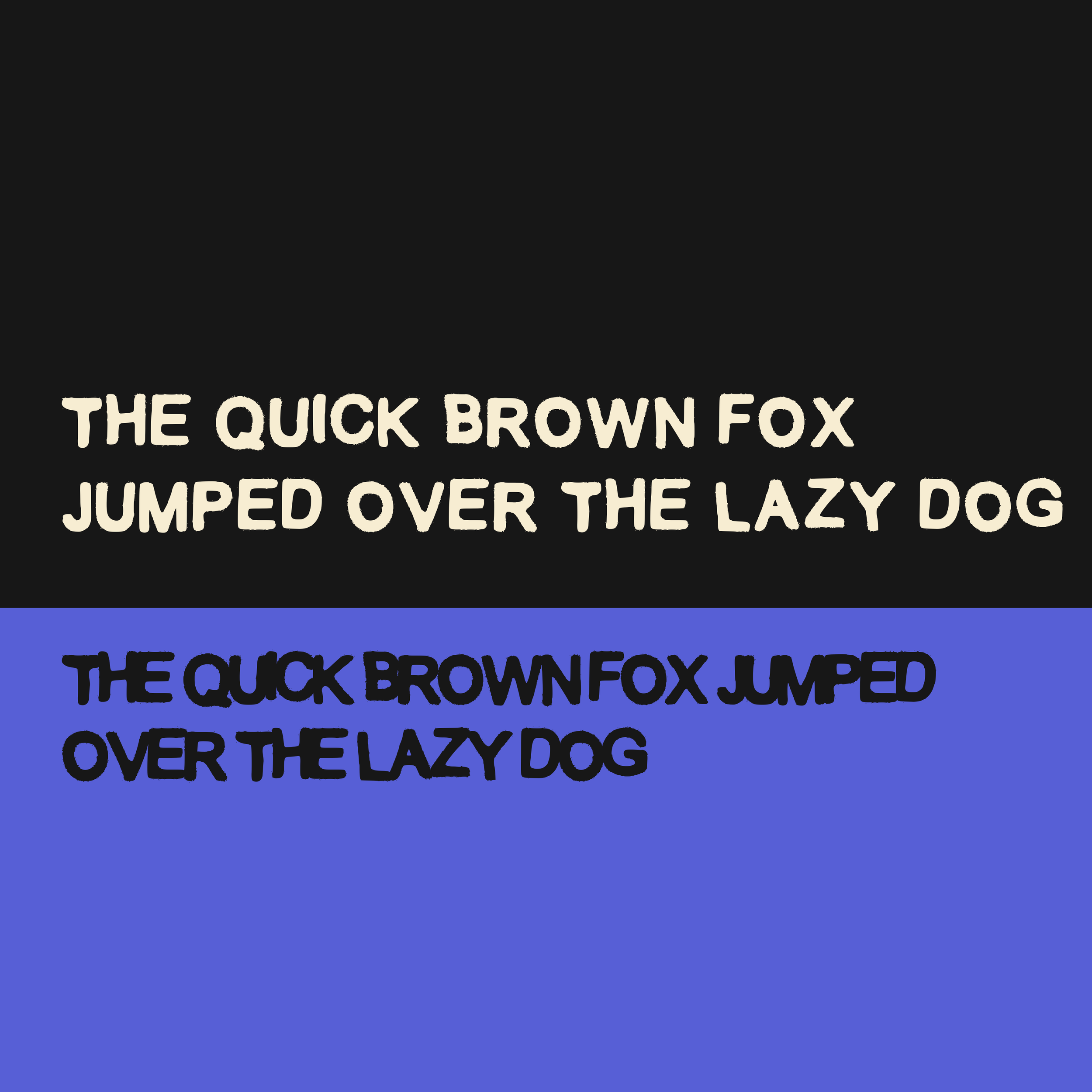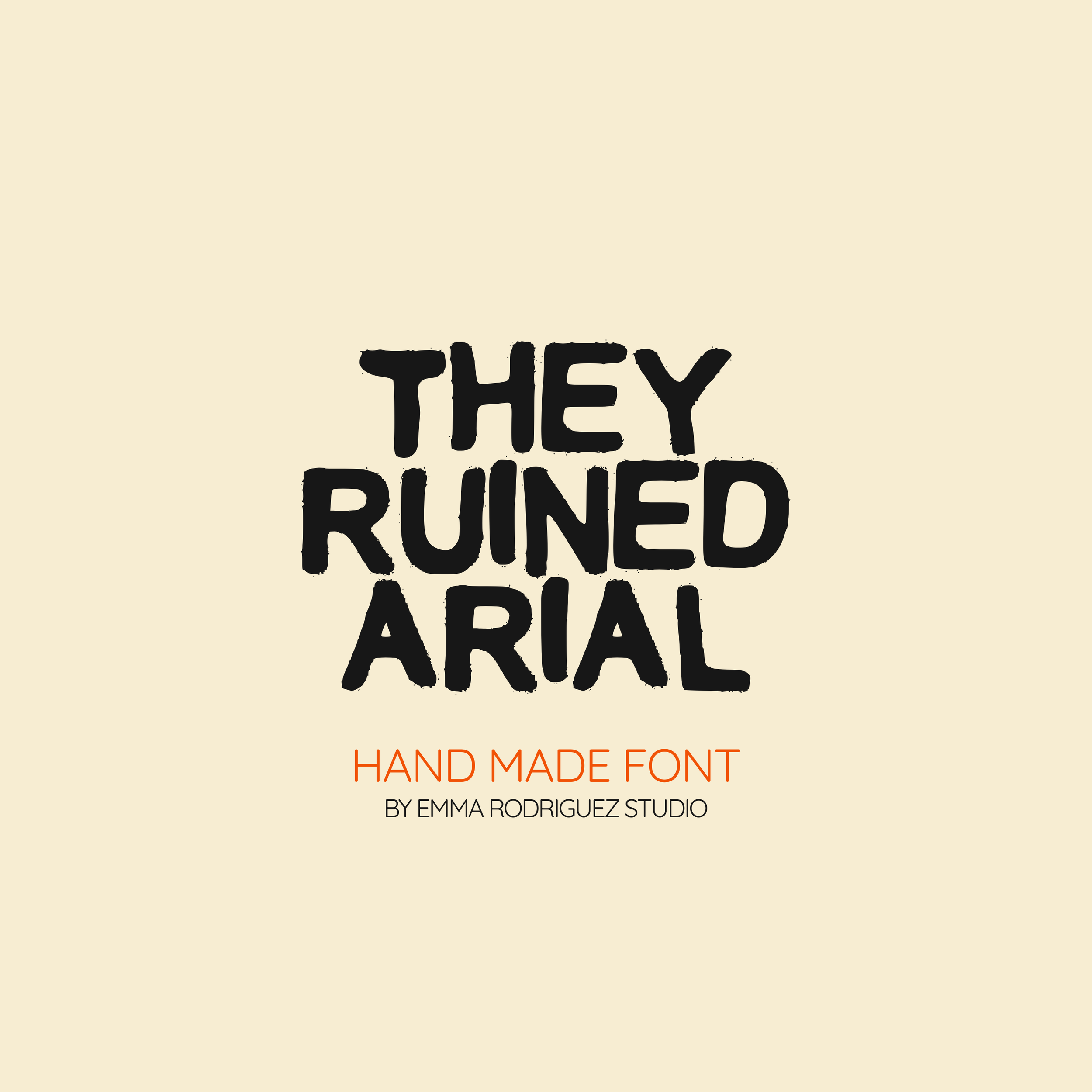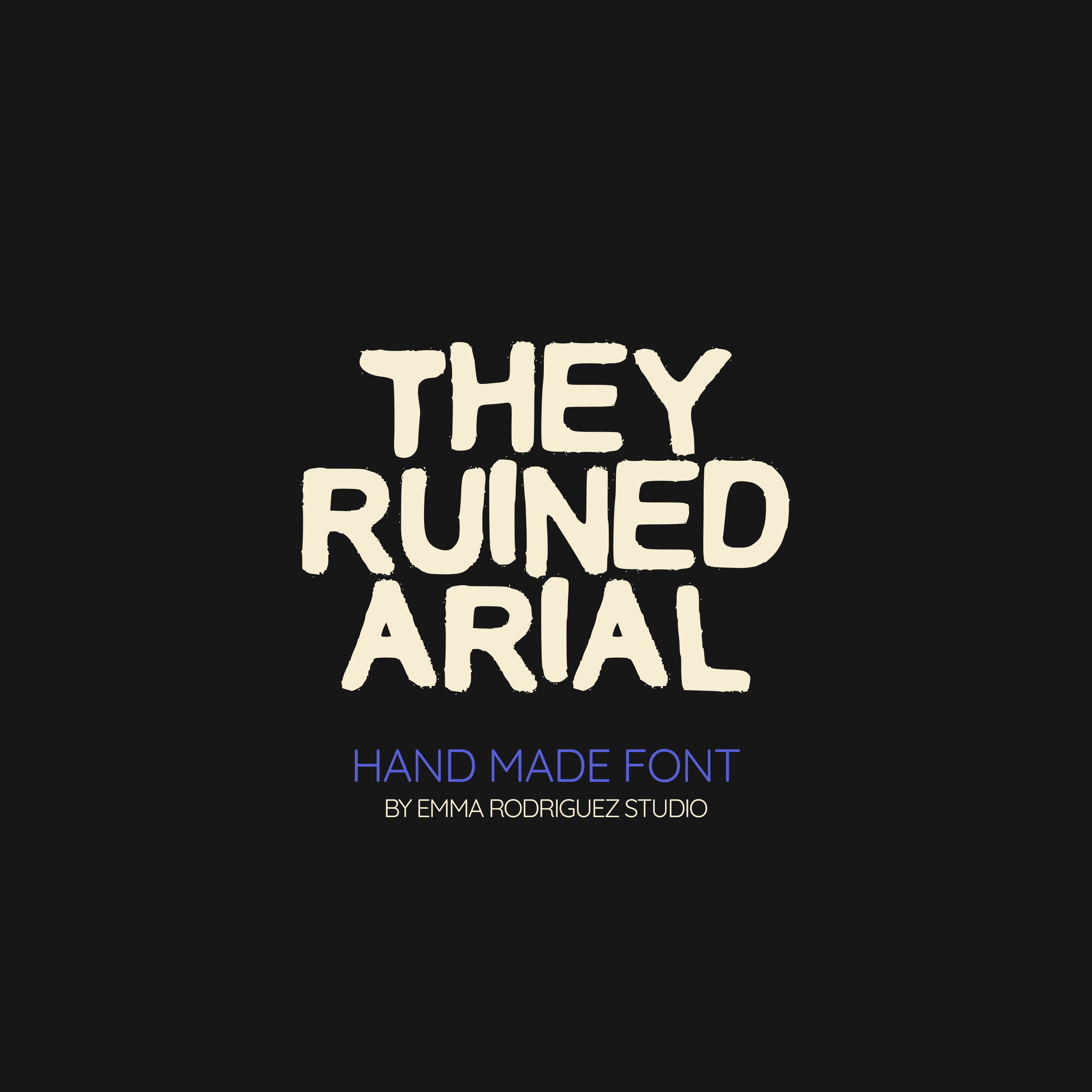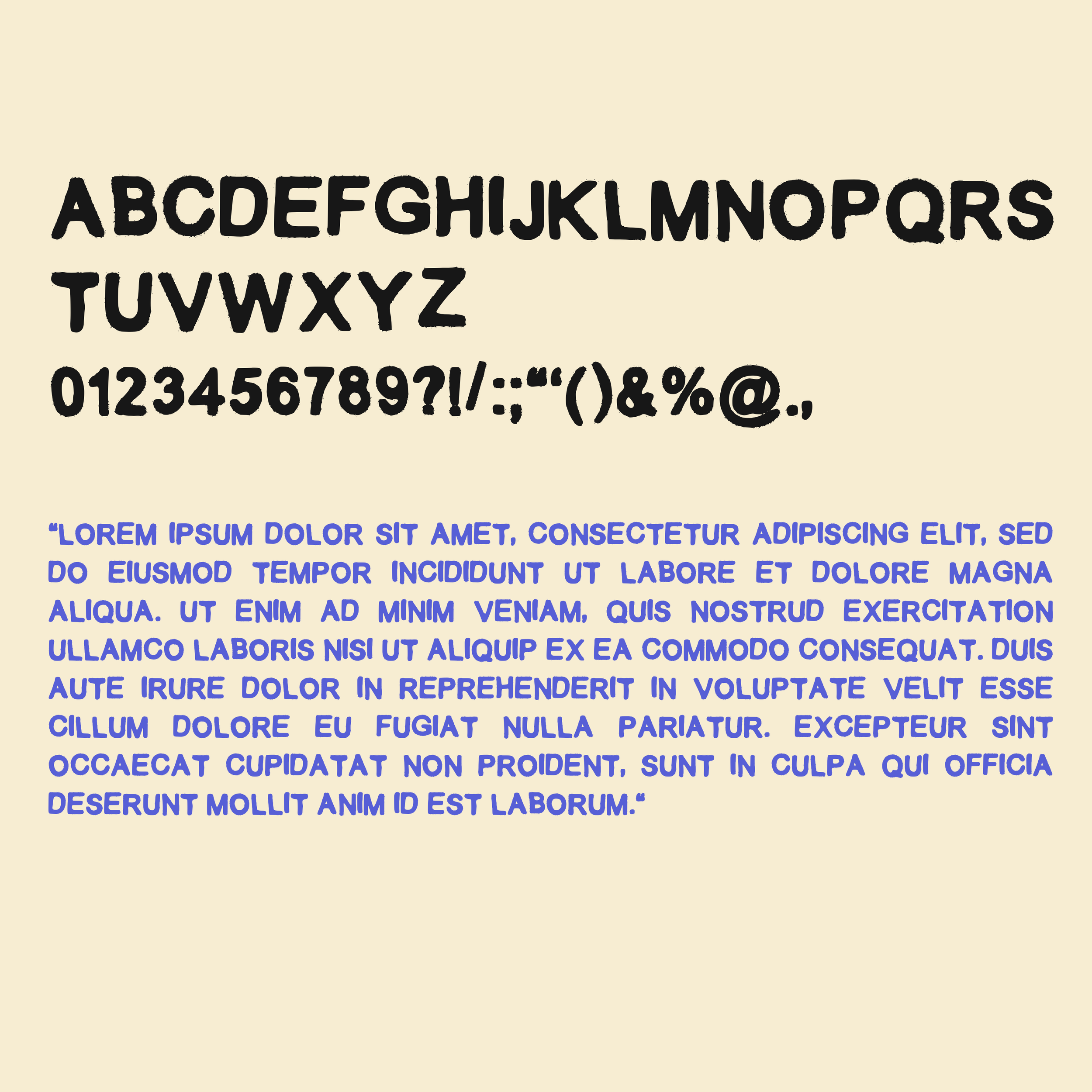
They Ruined Arial Font - San Serif Inky Stamp
Meet They Ruined Arial, a blotchy, inky stamp style twist on the world’s most painfully sensible font. It takes the clean, corporate structure of Arial and drags it through ink, pressure, and rough texture until it feels bold, gritty, and slightly unhinged.
Still recognisable. Still structured. Just ruined in the best possible way.
This all lowercase typeface keeps the familiar bones of Arial but adds heavy ink bleed, uneven stamp edges, and raw texture. It feels like something printed with too much pressure on cheap paper, scanned back in, and embraced for its flaws.
Perfect when you want something that feels strong but not sterile.
• All uppercase letters
• Numbers and basic punctuation
Use it for:
• Edgy branding
• Music artwork
• Bold posters
• Zines
• Statement quotes
• Sticker designs
• Streetwear graphics
• Digital planners with attitude
Fonts by Emma Rodriguez Studio are made to have personality. Expect naive shapes, wonky details, playful imperfections and type that doesn’t take itself too seriously. They’re not designed for clean, minimal branding. They’re for bold, quirky, maximalist projects that need something a little stranger, sillier and more expressive.